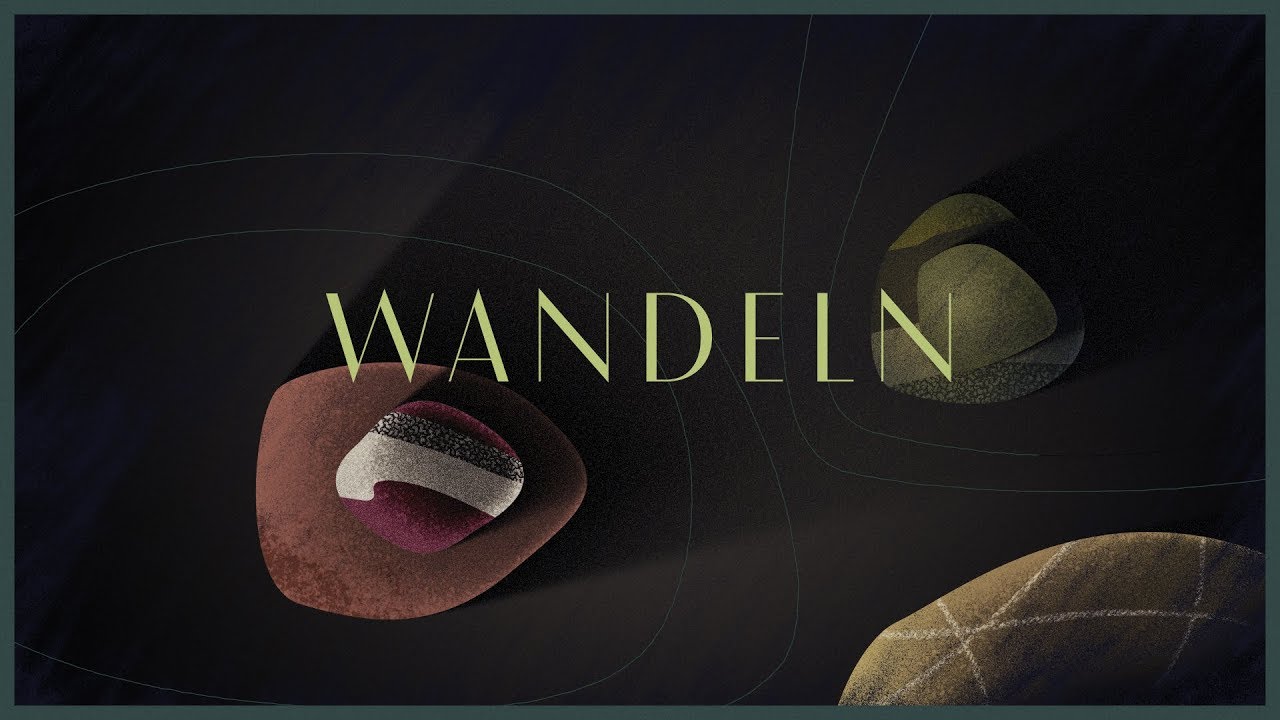
Wandeln Animated Typeface On Behance Wandeln is a classy yet modern typeface with high contrast and futuristic looking animations. it is inspired by art deco design and vintage french beverage labels. Wandeln is a classy yet modern typeface with high contrast and futuristic looking animations available in both animated and static. order 4 or more animography typefaces and save 25%.
Wandeln Animated Typeface On Behance Wandeln is a classy yet modern typeface with high contrast and futuristic looking animations. it is inspired by art deco design and vintage french beverage labels. Animated typeface for after effects inspired by art deco. features customizable color, flickering or smooth reveals, and unique two part animation rhythm. 12 เม.ย. 2019 wandeln is an animated typeface for adobe after effects. try or buy it at animography. „at the beginning there is nothing but a faint glow guiding you through darkness. confide and stride ahead “ wandeln depicts the inner journey….
Wandeln Animated Typeface On Behance 12 เม.ย. 2019 wandeln is an animated typeface for adobe after effects. try or buy it at animography. „at the beginning there is nothing but a faint glow guiding you through darkness. confide and stride ahead “ wandeln depicts the inner journey…. Behance is the world's largest creative network for showcasing and discovering creative animated typeface work. Behance behance. Wandeln is an animated typeface for adobe after effects. try or buy it at animography. Aescripts wandeln is a classy yet modern typeface with high contrast and futuristic looking animations. it is inspired by art deco design.
Wandeln Animated Typeface On Behance is the world's largest creative network for showcasing and discovering creative animated typeface work. Behance behance. Wandeln is an animated typeface for adobe after effects. try or buy it at animography. Aescripts wandeln is a classy yet modern typeface with high contrast and futuristic looking animations. it is inspired by art deco design.
Wandeln Animated Typeface On Behance Wandeln is an animated typeface for adobe after effects. try or buy it at animography. Aescripts wandeln is a classy yet modern typeface with high contrast and futuristic looking animations. it is inspired by art deco design.